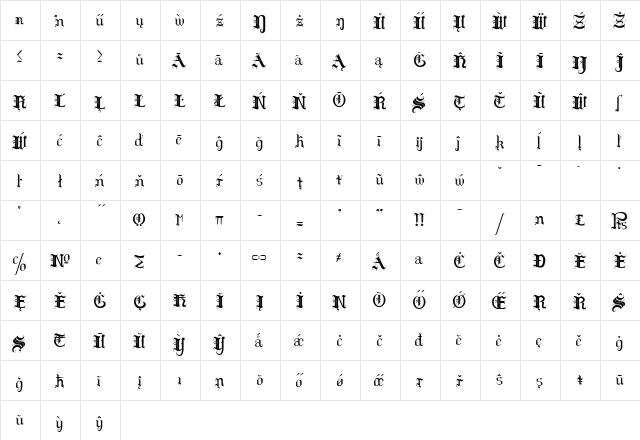
Hilda Sonnenschein Extra Extra Characters
Design Context for Hilda Sonnenschein Extra Typeface
Hilda Sonnenschein Extra is a composed and adaptable typeface that performs quietly and consistently across a wide range of design contexts.
Pro Tip: Use Hilda Sonnenschein Extra in both headline and body roles to test its range before committing to a single application.